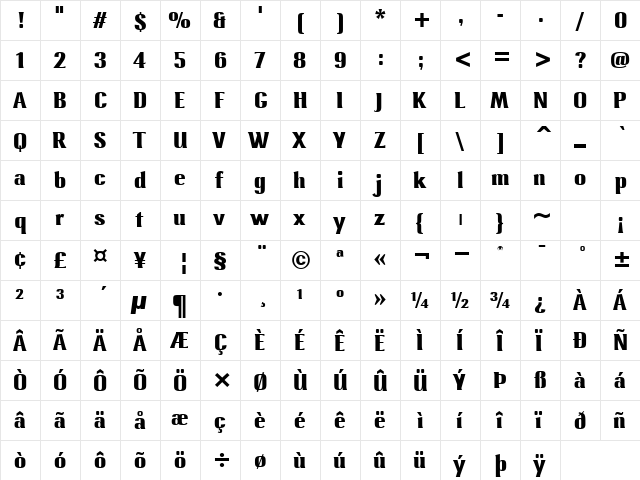
LennoxITC TT Bold Font Preview
LennoxITC TT Bold
LennoxITC TT Bold Font Details
Design Context for LennoxITC TT Typeface
LennoxITC TT is a composed and adaptable typeface that performs quietly and consistently across a wide range of design contexts. Its bold stroke weight gives it real presence on the page.